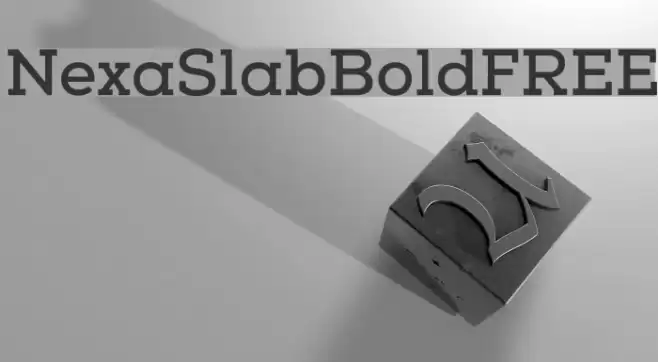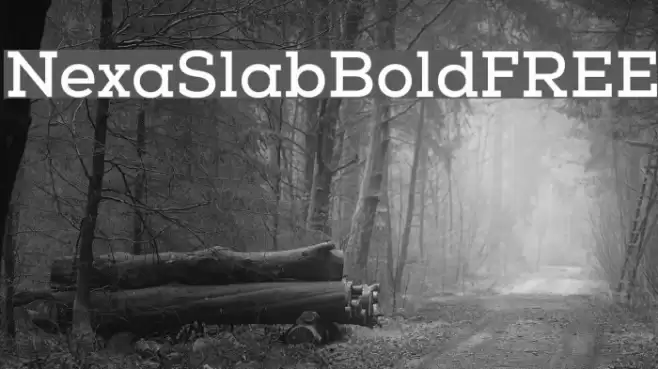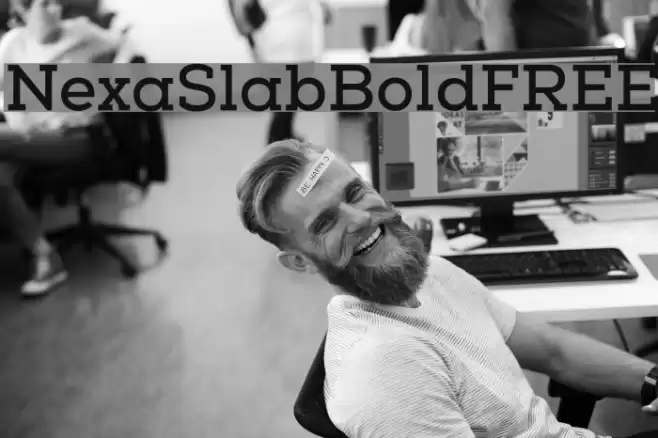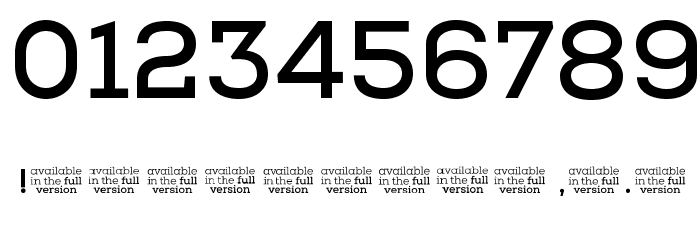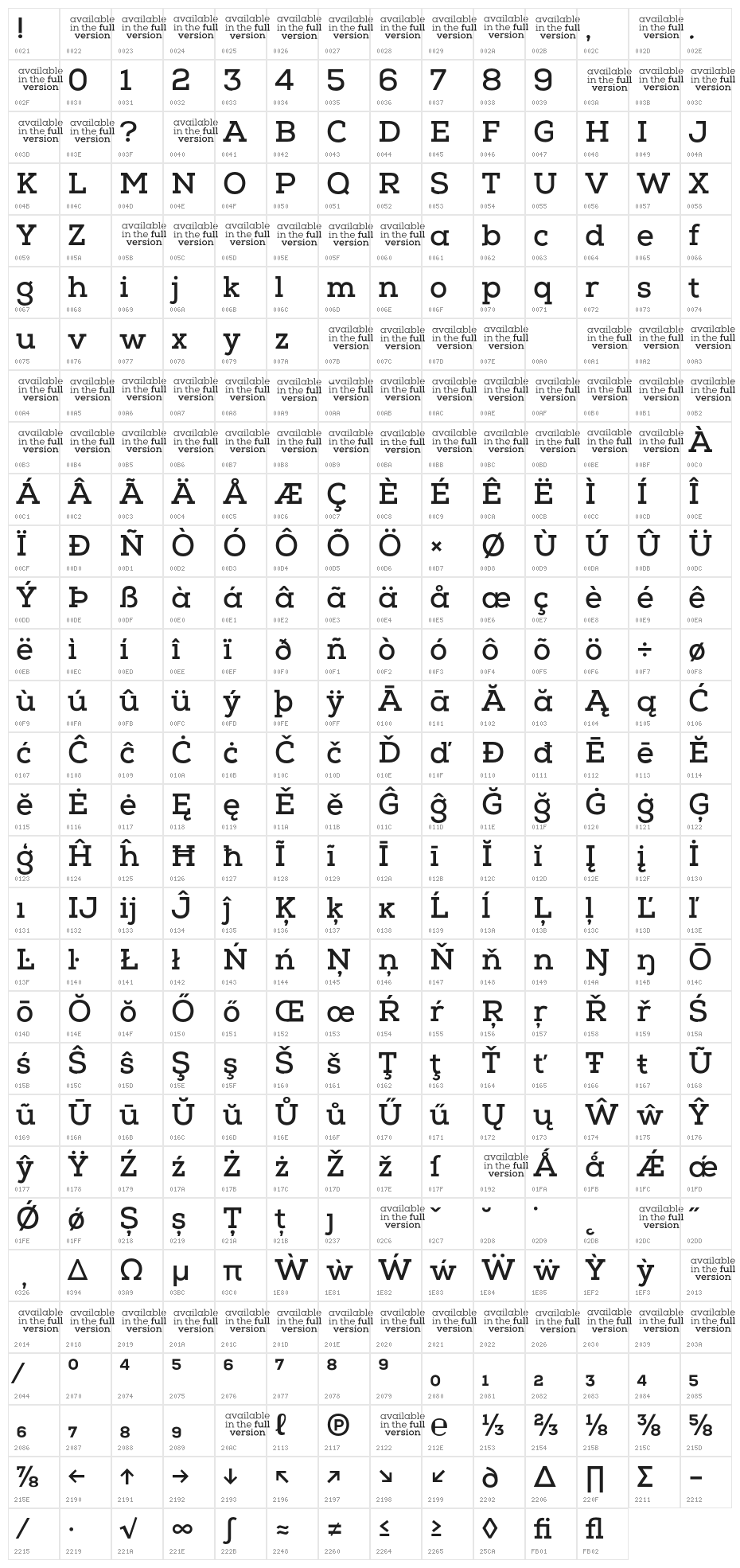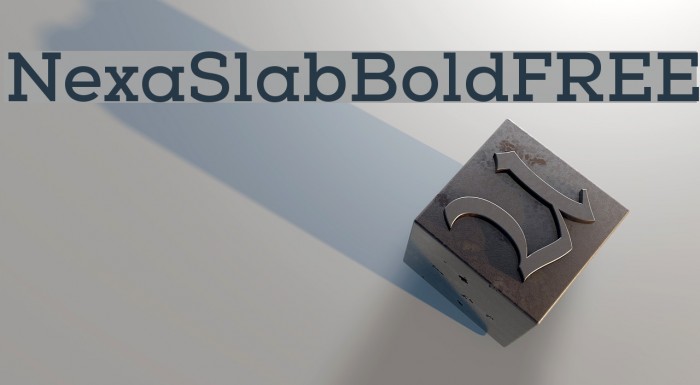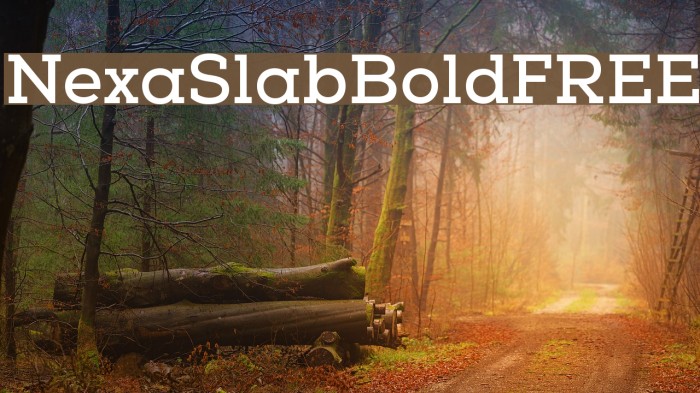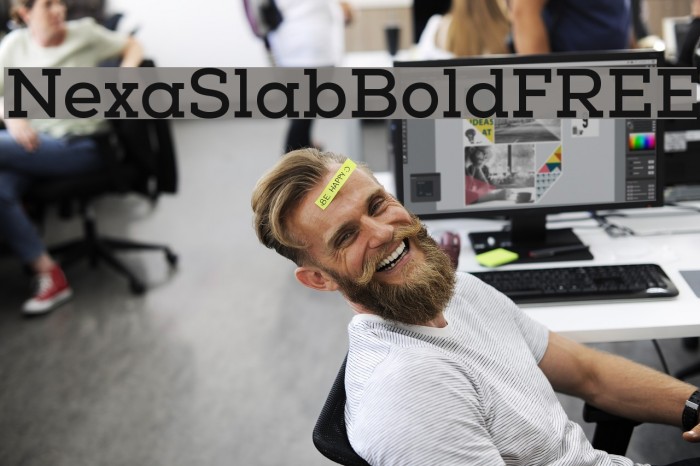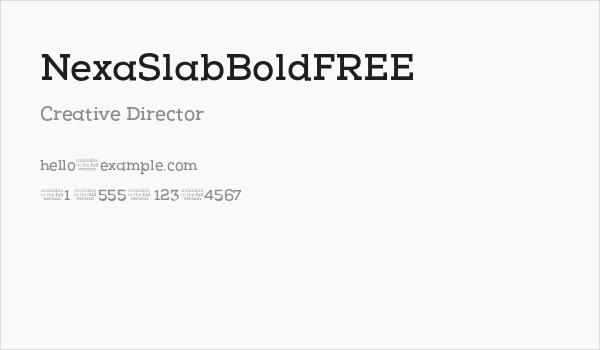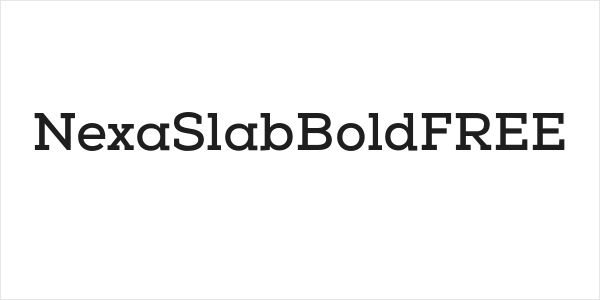
NexaSlabBoldFREE Font
NexaSlabBoldFREE Description
This font is a robust slab serif typeface characterized by its bold and strong appearance. The letters have a geometric structure with thick, block-like serifs that add a sense of stability and confidence. The uppercase letters are uniform in height and width, providing a balanced and cohesive look. The lowercase letters maintain a consistent x-height, ensuring readability. The numerals are clear and distinct, making them suitable for various applications. The overall design is modern yet retains a classic touch, making it versatile for both digital and print media.
A bold slab serif font with geometric structure and strong serifs from Uncategorized fonts.
- Proposed Projects: Ideal for branding, headlines, posters, and editorial design where a strong, confident typeface is needed.
- Use Case: Headlines, Logos, Branding